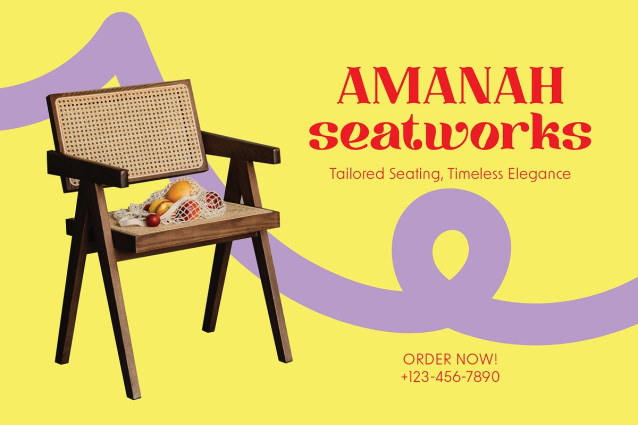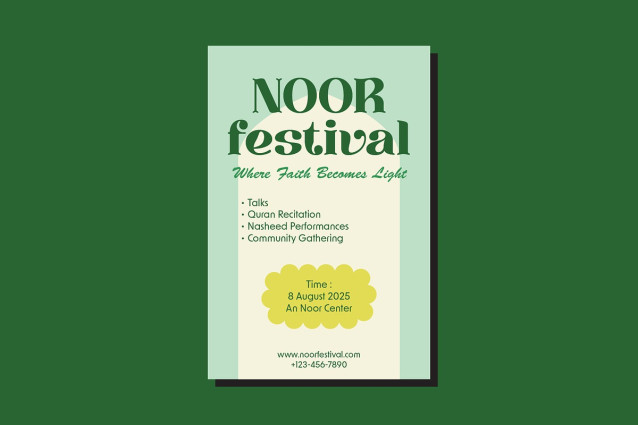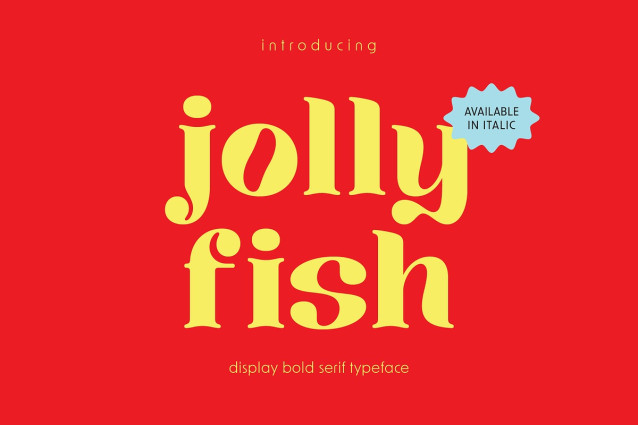
Jollyfish Font
Jollyfish Font a world of creativity with Jollyfish, the bold and playful display serif font that brings joy to every design. With its thick, rounded shapes, Jollyfish is perfect for creating eye-catching and delightful projects. Whether you’re designing a children’s magazine, a vibrant poster, quirky merchandise, fun stickers, or playful packaging, Jollyfish adds a unique and cheerful touch that stands out.
Jollyfish isn’t just about looks, it’s packed with functionality too. It includes a full set of alphabets, numbers, and basic punctuation, along with an italic version for each character, giving you the flexibility to bring your ideas to life. Available in TTF, OTF, and WOFF formats, Jollyfish ensures seamless compatibility across all your favorite platforms and devices.